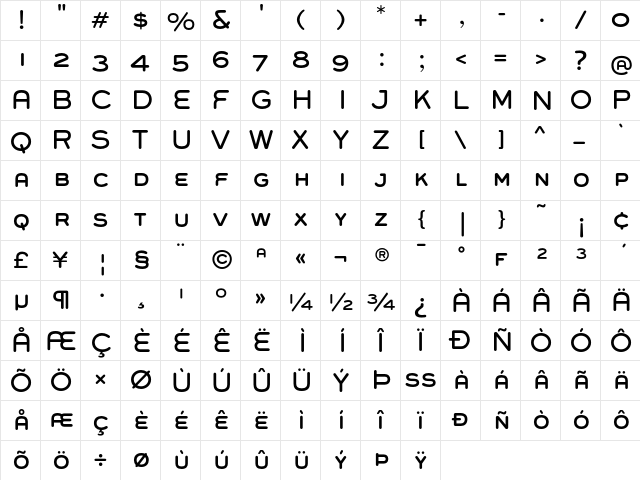
Grover Caps Regular
Design Context for Grover Caps Typeface
Grover Caps takes a measured approach to typography — its balanced proportions and neutral character make it a reliable workhorse for both digital and print work.